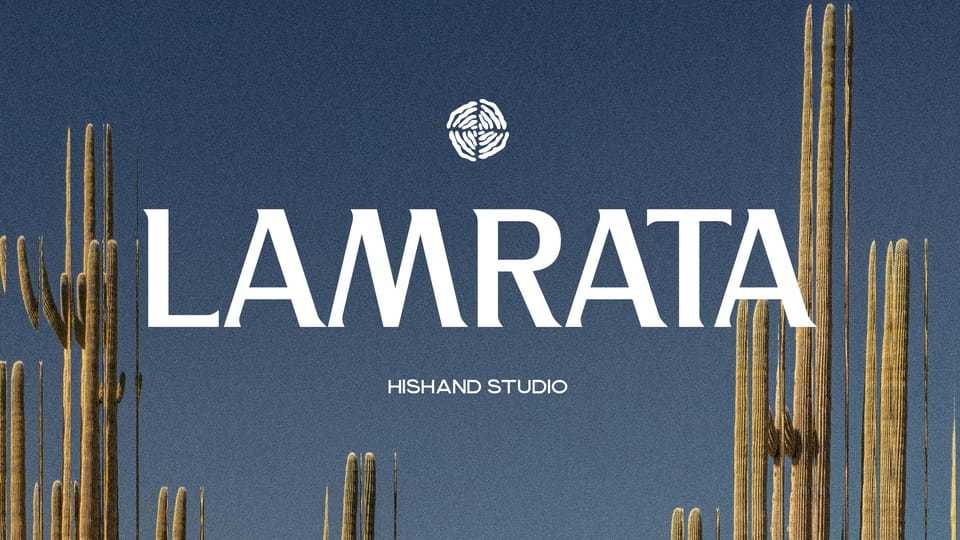
Download Lamrata font, a display serif typeface that combines bold structure with refined, classic aesthetics. Built with strong, even strokes, it avoids thin contrasts and instead focuses on solid, confident letterforms.